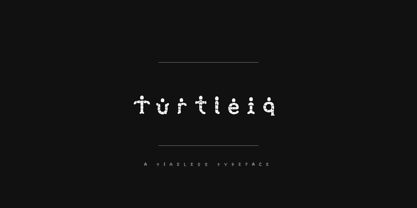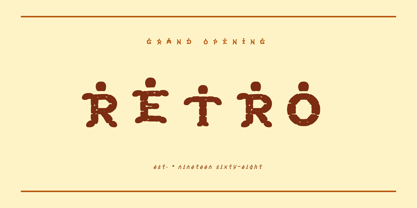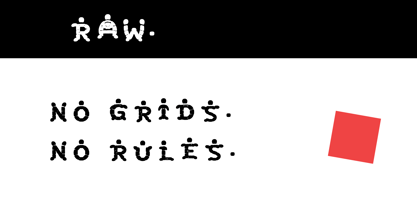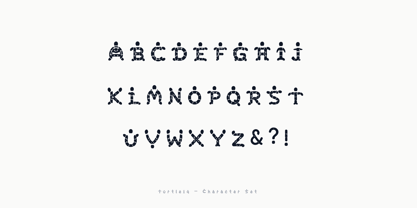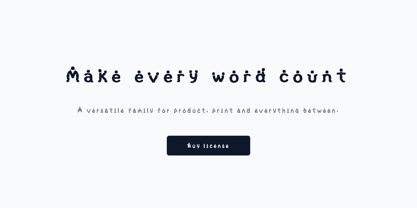
Turtleiq
von Qira
Die Schriftfamilie Turtleiq wurde von Ayman Hafez entworfen und von Qira veröffentlicht. Turtleiq enthält 1 Stile. Mehr über diese Familie
Turtleiq is a modern display font that boasts a playful personality and smooth, distinctive letter forms. Designed to stand out while remaining highly readable, its unique character adds warmth and originality to every design, ensuring your projects leave a lasting impression. Whether you're crafting bold brand identities or engaging creative artwork, Turtleiq delivers versatility, style, and personality in every letter.
Designer: Ayman Hafez
Foundry: Qira